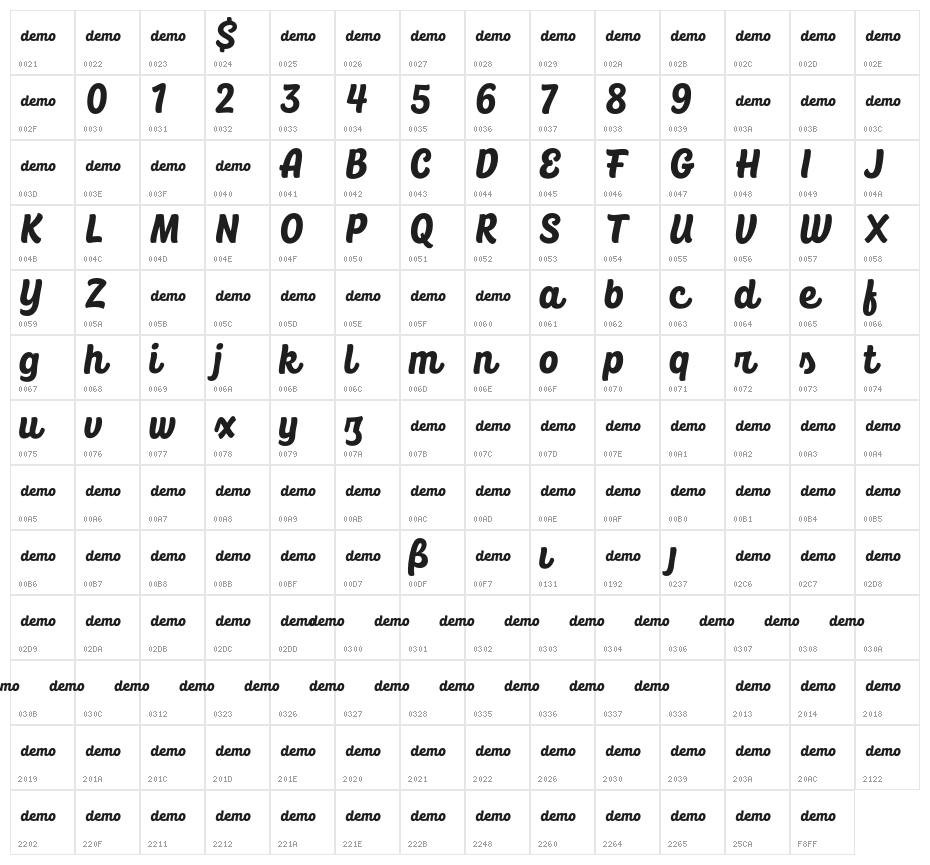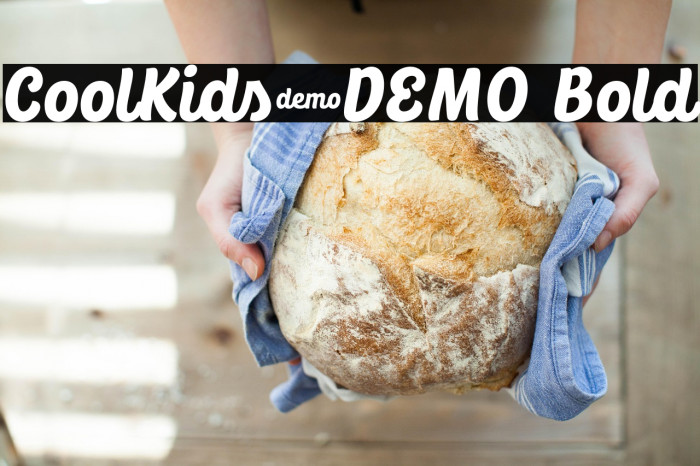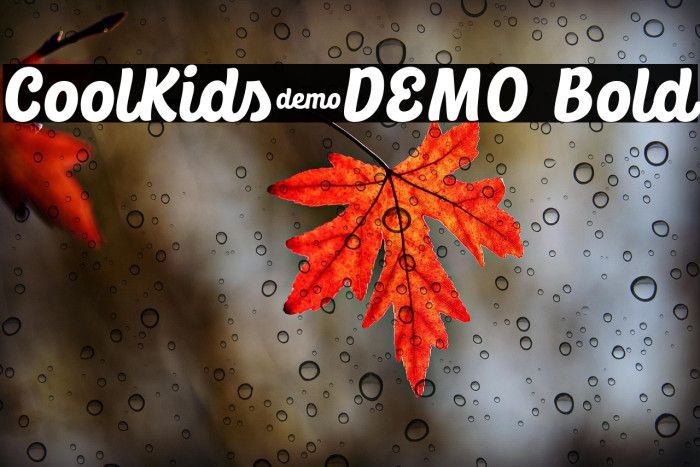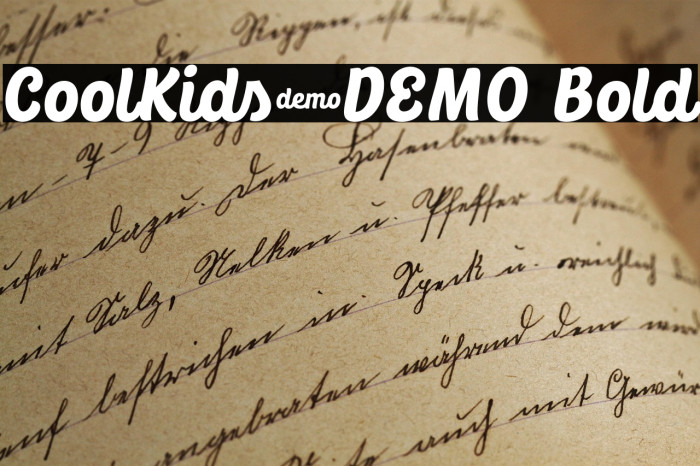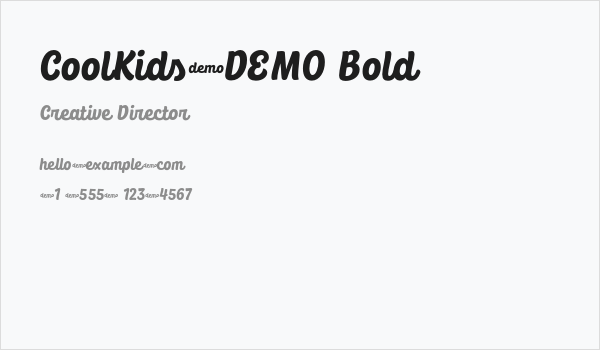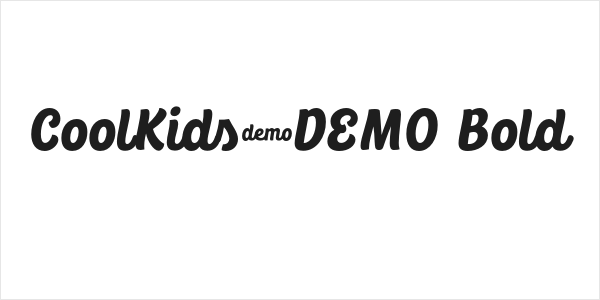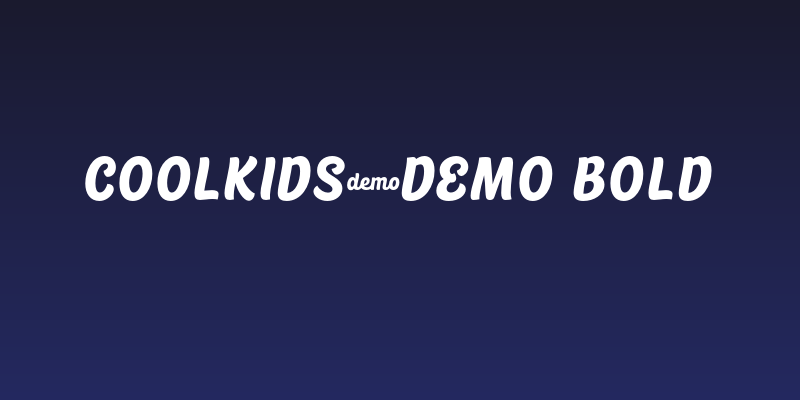
CoolKids-DEMO Bold Font
CoolKids-DEMO Bold Description
This playful and bold font features rounded edges and a friendly, approachable style. The letters are thick and slightly condensed, giving them a strong presence on the page. The uppercase and lowercase characters maintain a consistent weight, providing a harmonious look. The numbers are equally bold, ensuring they stand out clearly. Special characters are included, maintaining the same playful aesthetic. This font is ideal for projects that require a fun and energetic vibe, such as children's books, playful branding, or casual invitations.
| Overall Style | Playful, Energetic |
| Proposed Projects | Children's books, playful branding, casual invitations, posters. |